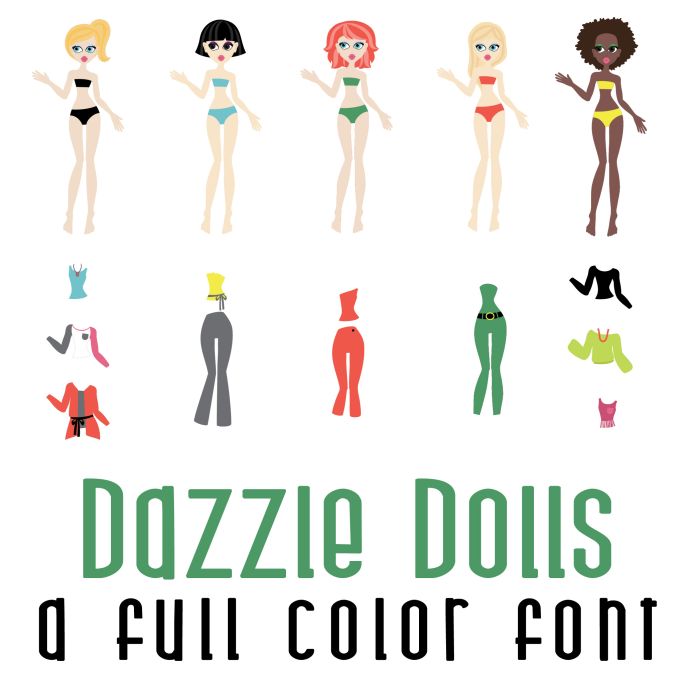
This fun full color font features 36 adorable dolls and doll clothes perfect for cards, crafts, gifts, planner stickers, scrap book pages, classrooms and more! Glyphs are A-Z, 0-9 for 36 unique glyphs.